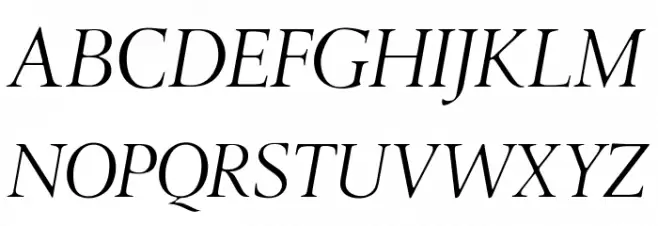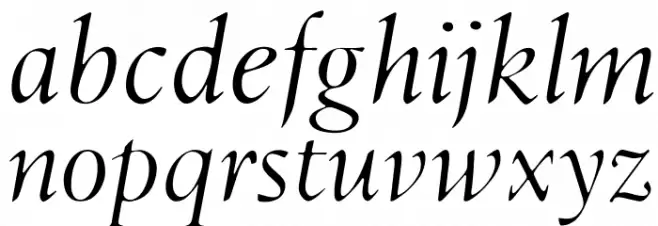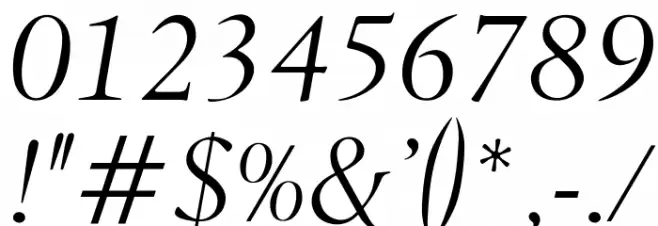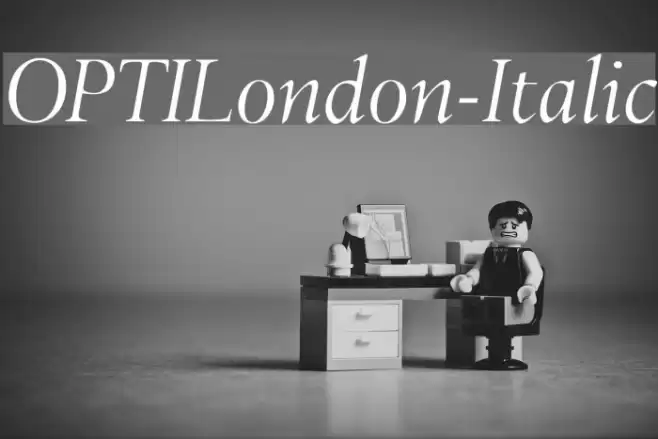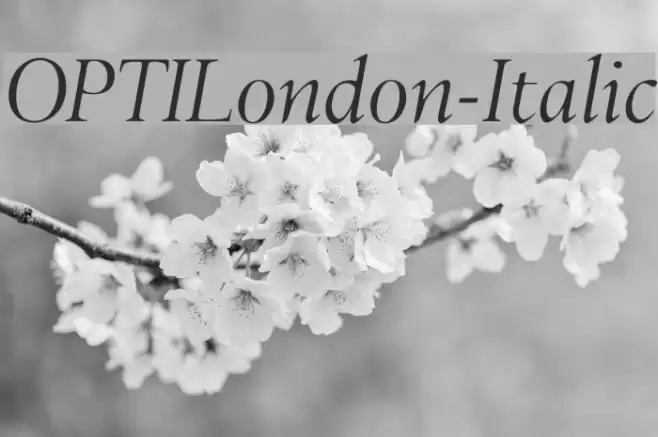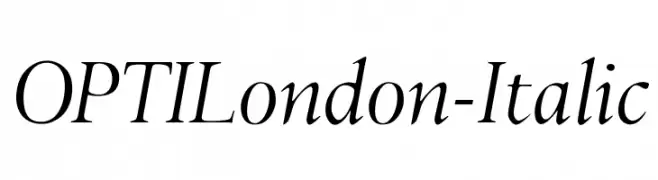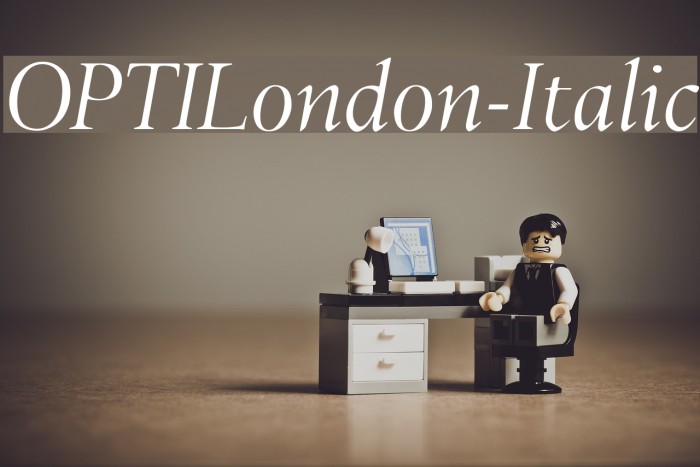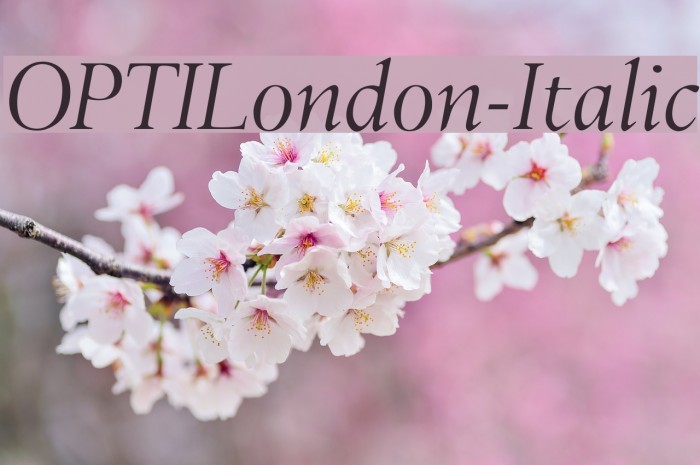
OPTILondon-Italic
This elegant serif font features a refined and sophisticated italic style, characterized by its graceful curves and sharp serifs. The uppercase letters are tall and stately, while the lowercase letters maintain a fluid and connected appearance, enhancing readability. The numerals are proportionate and blend seamlessly with the alphabet, adding to the font's versatility. Special characters are designed with the same attention to detail, ensuring consistency across all glyphs. The overall aesthetic is both classic and modern, making it suitable for a variety of applications.
An elegant serif italic font with graceful curves and sharp serifs.
- Proposed Projects: Ideal for use in editorial design, book covers, formal invitations, and luxury branding.
- Category: Serif
- Contrast: High
- Overall Style: Classic